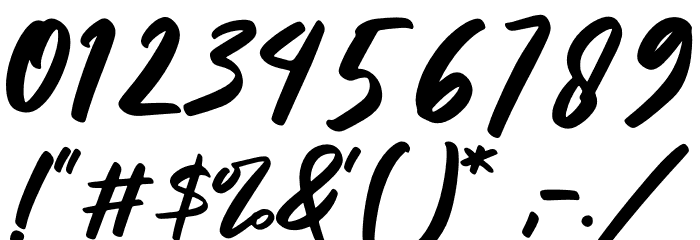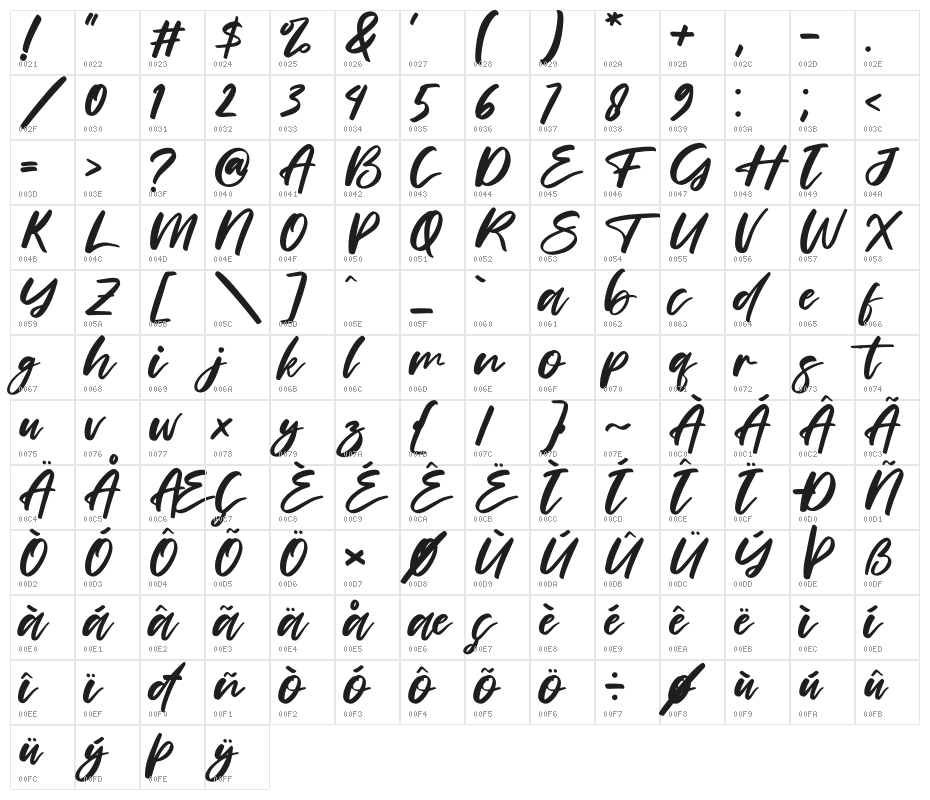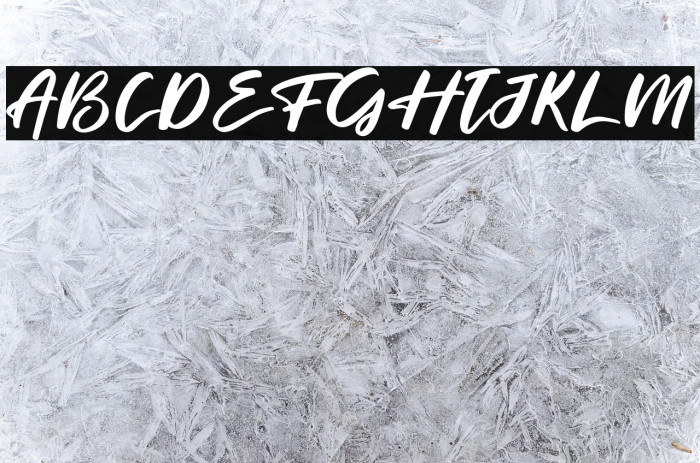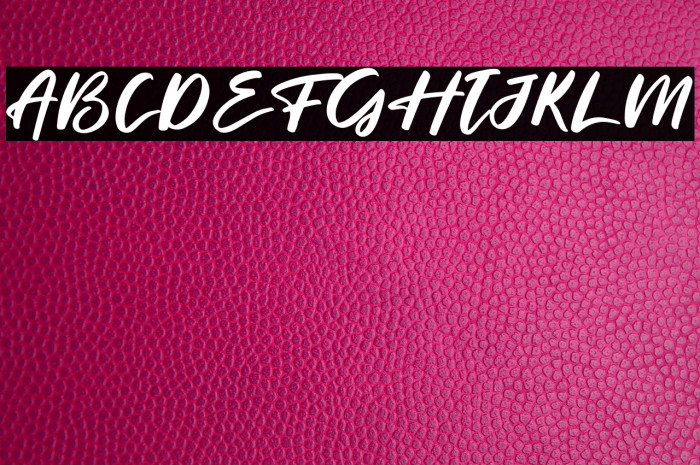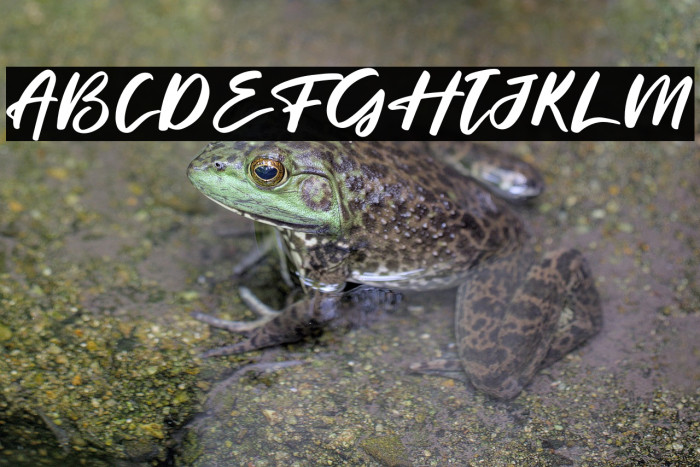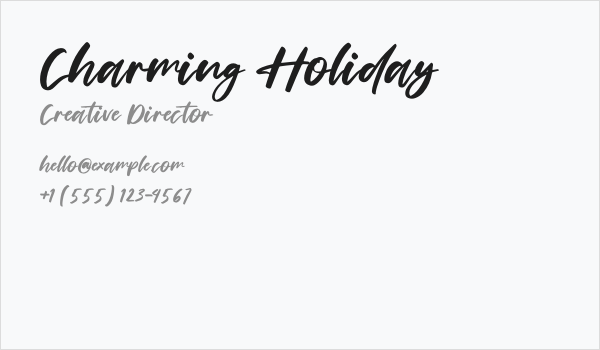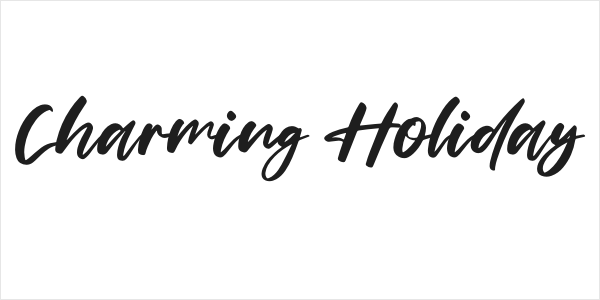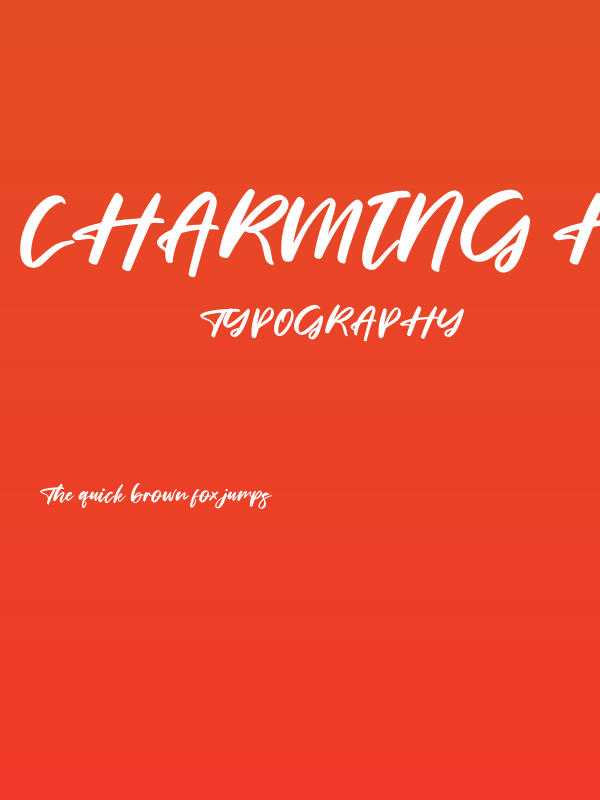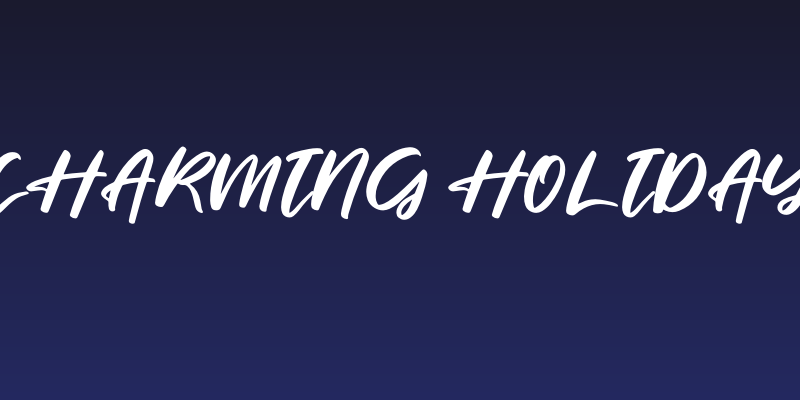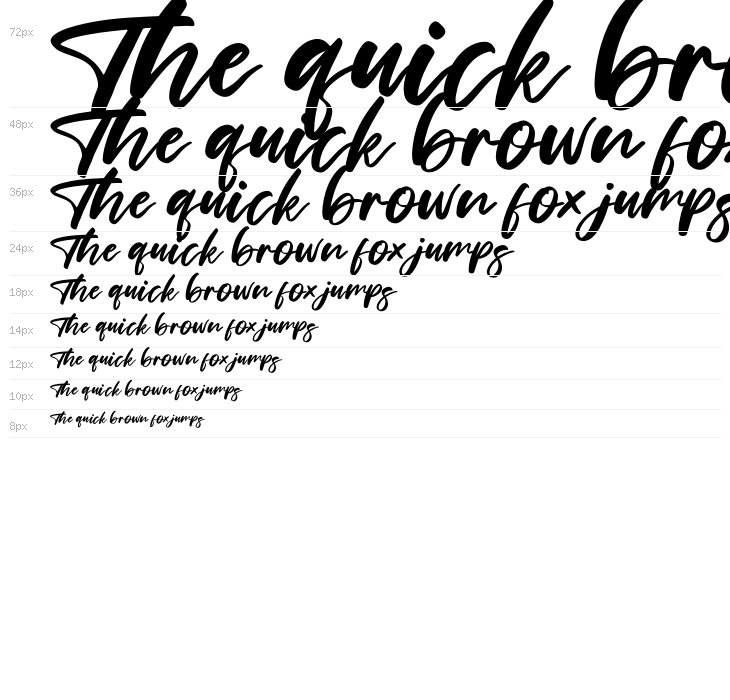
Charming Holiday Font
Charming Holiday Description
This font exudes a playful and energetic vibe, characterized by its bold, flowing script style. The letters are connected in a smooth, cursive manner, giving it a handwritten appearance. The strokes are thick and consistent, providing a strong visual impact. This font is highly legible despite its decorative nature, making it suitable for various creative applications. The uppercase letters are slightly more upright, while the lowercase letters have a more relaxed, flowing style. The numbers and special characters maintain the same bold and dynamic quality, ensuring a cohesive look across all elements.
| Proposed Projects | Ideal for holiday cards, invitations, branding projects, and social media graphics. |